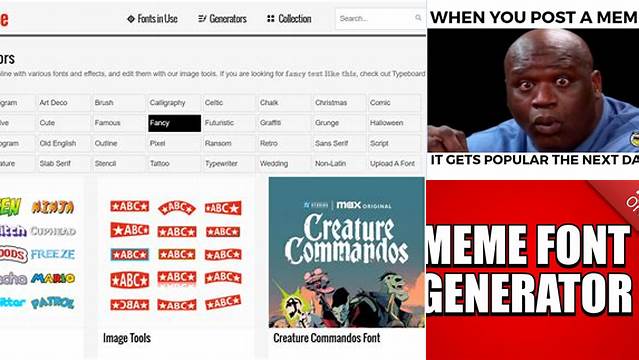
Meme Font Free: Top Choices For Hilarious Content
1. Understanding the Essence of Meme Fonts
Okay, guys, let's dive into the world of meme fonts! What exactly is a meme font? Well, it's not just any old typeface. Meme fonts are specifically chosen for their ability to convey humor, irony, and relatability in visual memes. Think about it – the font is almost as important as the image or the text itself. The right font can amplify the joke, making it funnier and more shareable. A big part of choosing fonts for meme font free creation involves understanding what makes a font work in a meme context. Factors like readability, boldness, and overall aesthetic play a huge role. You want something that grabs attention but doesn't distract from the message. You need a typeface that can be easily read on various screen sizes, from smartphones to desktop monitors. Emphasis is key; fonts like Impact have become iconic for a reason. But don't feel limited to just one or two options. The world of typography is vast, and there are tons of fonts out there waiting to become the next big thing in meme culture. So, when you're thinking meme font free, you're really thinking about finding that perfect balance between visibility, style, and comedic effect. A good meme font should be instantly recognizable and easily adaptable to different meme formats and themes. It's about finding the right font to add that extra layer of humor and engagement to your memes. That's the essence of meme fonts – making your jokes pop and ensuring they spread like wildfire across the internet!
2. The Iconic Impact Font: A Meme Staple
Let's be real: no discussion about meme font free options is complete without bowing down to the king – Impact. This font is practically synonymous with memes. It's bold, it's blocky, and it screams for attention, making it perfect for those classic top and bottom text memes. Impact's strength lies in its simplicity. It's incredibly readable, even when shrunk down or viewed on low-resolution screens. This is crucial because memes are consumed on all sorts of devices. The thick, condensed letters ensure that your message punches through the visual clutter of the internet. For anyone looking at meme font free resources, Impact is usually the first suggestion. It's the go-to choice because it's so universally recognized. Using Impact instantly signals to viewers that they're about to see something funny (or at least trying to be). Its widespread use means that it has become a visual shorthand for humor online. The font evokes a sense of familiarity and nostalgia, connecting with viewers on a subconscious level. While Impact might be overused in some circles, its effectiveness is undeniable. It continues to be a popular choice for meme creators because it's reliable, easy to use, and instantly recognizable. When you're creating a meme, you want to ensure that your message is clear and impactful – literally! And Impact font does just that. It's the backbone of countless memes and remains a top pick for anyone looking to make their content go viral. When in doubt, Impact is your safe bet. Just don't overuse it too much – variety is the spice of meme life, after all!
3. Alternatives to Impact: Expanding Your Meme Font Arsenal
Okay, so Impact is the OG meme font free option, but let's not get stuck in the past! There's a whole universe of fonts out there that can bring fresh vibes to your memes. Variety is the spice of life, and the same goes for meme creation. Think about it: if every meme used Impact, things would get stale pretty quickly. So, what are some worthy alternatives? Arial Black is a solid choice. It's clean, bold, and highly readable, offering a similar feel to Impact but with a slightly different flavor. Another great option is Bebas Neue. This sans-serif font is tall and condensed, perfect for creating a modern, minimalist meme aesthetic. It's sleek and stylish, making it a great way to stand out from the crowd. For those aiming for a more vintage or retro feel, consider using fonts like Montserrat or Lato. These fonts have a classic look that can add a touch of sophistication to your memes. They're versatile enough to work in various contexts, from serious to silly. Don't be afraid to experiment with different font pairings, either. Try combining a bold header font with a simpler body font to create visual contrast. Or, use a handwritten font for a more personal and informal touch. The key is to find fonts that complement your meme's message and aesthetic. Exploring alternatives to Impact will not only make your memes more visually interesting but also help you develop your unique style as a meme creator. So, go ahead and explore the possibilities. You might just discover your new favorite meme font free alternative!
4. Exploring Sans-Serif Fonts for Modern Memes
When creating modern memes, meme font free options often lead you to the world of sans-serif fonts. These fonts are known for their clean lines and minimalist aesthetic, making them perfect for conveying a contemporary vibe. Sans-serif fonts lack the small decorative strokes (or serifs) that you find in traditional fonts like Times New Roman, giving them a more streamlined and approachable look. For anyone looking to design memes that feel fresh and current, exploring sans-serif options is a must. Fonts like Open Sans, Roboto, and Lato are all excellent choices. They're highly readable, versatile, and widely available, making them ideal for meme creation. Open Sans is particularly popular for its clean and friendly appearance. It's easy on the eyes and works well in various contexts, from serious to humorous. Roboto is another great option, known for its geometric shapes and modern feel. It's a highly versatile font that can be used in a wide range of meme styles. Lato is a bit more rounded and friendly, making it a great choice for memes that aim to convey a sense of warmth and approachability. These meme font free choices aren't just about aesthetics; they're also about readability. Sans-serif fonts are generally easier to read on digital screens, especially at smaller sizes. This is crucial because memes are often viewed on smartphones and other mobile devices. By choosing a sans-serif font, you can ensure that your meme's message is clear and easily understood, no matter the device. So, when you're designing your next meme, consider giving sans-serif fonts a try. They might just be the perfect choice for achieving that modern, clean look you're after.
5. Serif Fonts: Adding a Touch of Class to Your Memes
While sans-serif fonts dominate the modern meme landscape, don't count out serif fonts just yet! These classic typefaces can add a touch of sophistication and elegance to your memes, setting them apart from the crowd. When exploring meme font free options, considering serif fonts can open up a whole new world of creative possibilities. Serif fonts are characterized by the small decorative strokes (serifs) that extend from the ends of the letters. These serifs give the fonts a more traditional and formal appearance, making them ideal for memes that aim to convey a sense of history, authority, or refinement. Fonts like Times New Roman, Georgia, and Garamond are all excellent examples of serif fonts. Times New Roman is a classic choice, known for its readability and timeless appeal. Georgia is a bit more rounded and friendly, making it a great option for memes that aim to convey a sense of warmth and approachability. Garamond is a more elegant and refined choice, perfect for memes that aim to convey a sense of sophistication and class. Using serif fonts in your memes can be a great way to subvert expectations and create a unique visual style. Imagine a meme that uses a traditional serif font to convey a humorous message – the contrast between the font's formality and the meme's silliness can be incredibly effective. However, it's important to use serif fonts sparingly and with intention. Overusing them can make your memes look dated or stuffy. But when used correctly, serif fonts can add a touch of class and sophistication to your meme creations. They're a great way to show off your typographic skills and create memes that truly stand out from the crowd. Exploring meme font free options is a worthy way to spend your time.
6. Script Fonts: Injecting Personality and Flair
Looking to add a personal touch to your memes? Script fonts might just be the answer. These fonts mimic the flowing strokes of handwriting, adding personality and flair to your creations. When exploring meme font free options, script fonts can be a fantastic way to inject some unique character into your visual jokes. Script fonts come in a wide variety of styles, from elegant and formal to playful and whimsical. Some popular examples include Brush Script MT, Pacifico, and Lobster. Brush Script MT is a classic choice, known for its casual and friendly appearance. It's perfect for memes that aim to convey a sense of informality and fun. Pacifico is a more modern and stylish option, with a flowing, handwritten feel. It's great for memes that aim to convey a sense of creativity and style. Lobster is a bold and eye-catching script font, perfect for memes that need to grab attention. Using script fonts in your memes can be a great way to express your unique personality and create a visual style that stands out from the crowd. However, it's important to use script fonts sparingly and with intention. Overusing them can make your memes look cluttered or difficult to read. But when used correctly, script fonts can add a touch of personality and flair to your meme creations. They're a great way to show off your creative side and create memes that feel truly unique and personal. Always be aware of the meme font free options that are out there.
7. Monospace Fonts: A Retro Vibe for Your Memes
Want to give your memes a retro, computer-y vibe? Monospace fonts are the way to go! These fonts, where every character occupies the same horizontal space, evoke the feel of old typewriters and early computers. When considering meme font free choices, monospace fonts can add a cool, nostalgic touch to your visual gags. Common examples include Courier New, Consolas, and Monaco. Courier New is a classic monospace font, instantly recognizable from its use in screenplays and coding environments. Consolas is a more modern and readable monospace option, designed for on-screen use. Monaco, often associated with Apple's operating systems, provides a clean and sleek retro feel. Using monospace fonts in memes can create a unique aesthetic, hinting at technology, code, or a vintage feel. Imagine using it for memes referencing old internet tropes or tech humor. However, it's vital to use them judiciously. Because they're designed for code and readability in specific contexts, using too much monospace font can make your meme harder to read at a glance. But when employed effectively, these fonts add a retro vibe to your meme, making it stand out and appealing to those with a fondness for vintage tech aesthetics. There are a lot of meme font free options online.
8. Decorative Fonts: Unleashing Creativity in Meme Design
For the truly adventurous meme creator, decorative fonts offer a chance to unleash creativity and make a bold statement. These fonts are often highly stylized and unique, pushing the boundaries of traditional typography. When looking at meme font free resources, remember that decorative fonts can be a double-edged sword. On one hand, they can add a distinct and eye-catching element to your memes, making them truly unforgettable. On the other hand, they can be difficult to read or may clash with the overall aesthetic of your meme if not used carefully. Examples of decorative fonts include things like display fonts with unusual shapes, fonts that mimic textures (like wood or metal), or fonts that include symbols and illustrations within the letters themselves. When using decorative fonts, it's important to consider the context of your meme and the message you're trying to convey. A font that's perfect for a spooky Halloween-themed meme might be completely inappropriate for a lighthearted meme about everyday life. Readability is also key. If your audience can't easily read the text in your meme, they're likely to scroll right past it. Use decorative fonts sparingly, perhaps for headings or short bursts of text, and pair them with a simpler, more readable font for the main body of your meme. When used thoughtfully, decorative fonts can elevate your meme design and help you create content that's truly unique and memorable. There are many places to look for meme font free options.
9. Handwritten Fonts: Adding a Personal Touch
If you're aiming for a personal and relatable meme, handwritten fonts are a fantastic choice. These fonts mimic the look of actual handwriting, adding an authentic and human touch to your content. When you're searching for meme font free options, handwritten styles can make your memes feel more intimate and approachable. These fonts come in various styles, from neat and legible to messy and quirky, offering a range of emotional tones. Fonts like